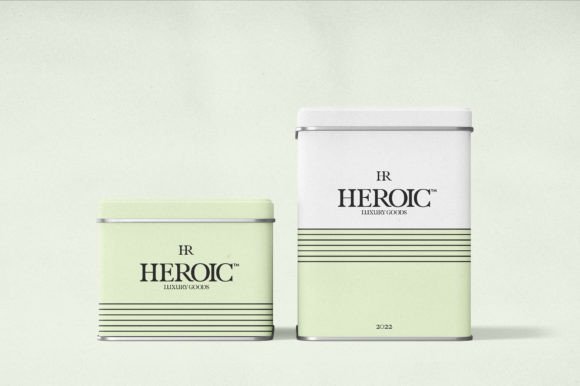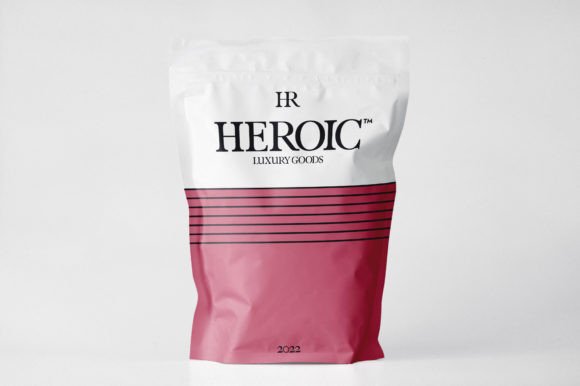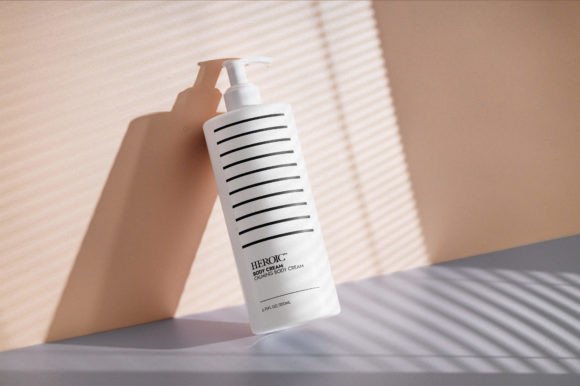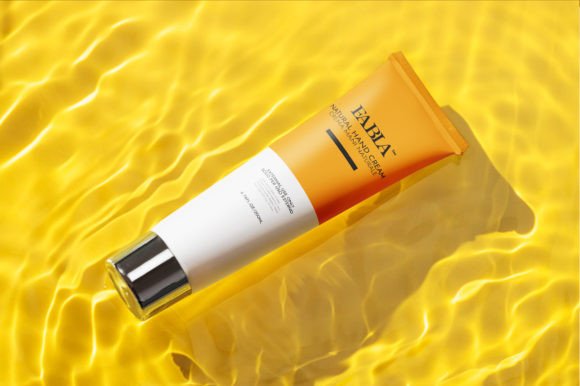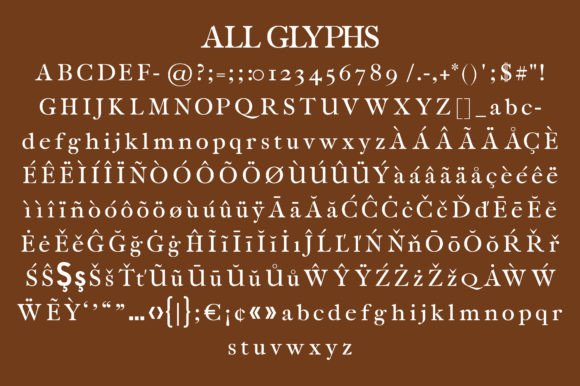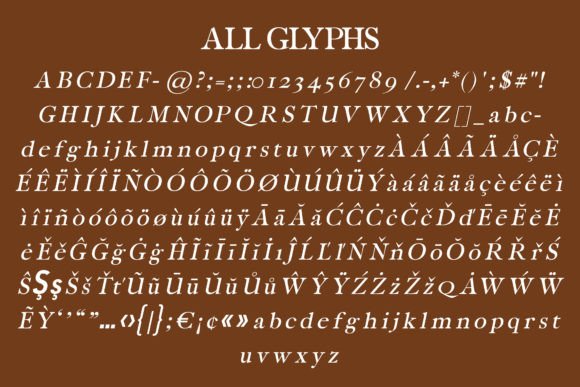
Introduction to Heroic Font
Heroic is an essential, elegant and minimalistic serif typeface.
Its unique glyphs construction makes it a perfect choice for packaging design, cosmetics design, poster designs, book covers, fashion design, presentations, etc Use it confidently in your creation, and you will see how fastly becomes one of your fonts in your library.
Key Features of Heroic Font
Why Choose Heroic Font?